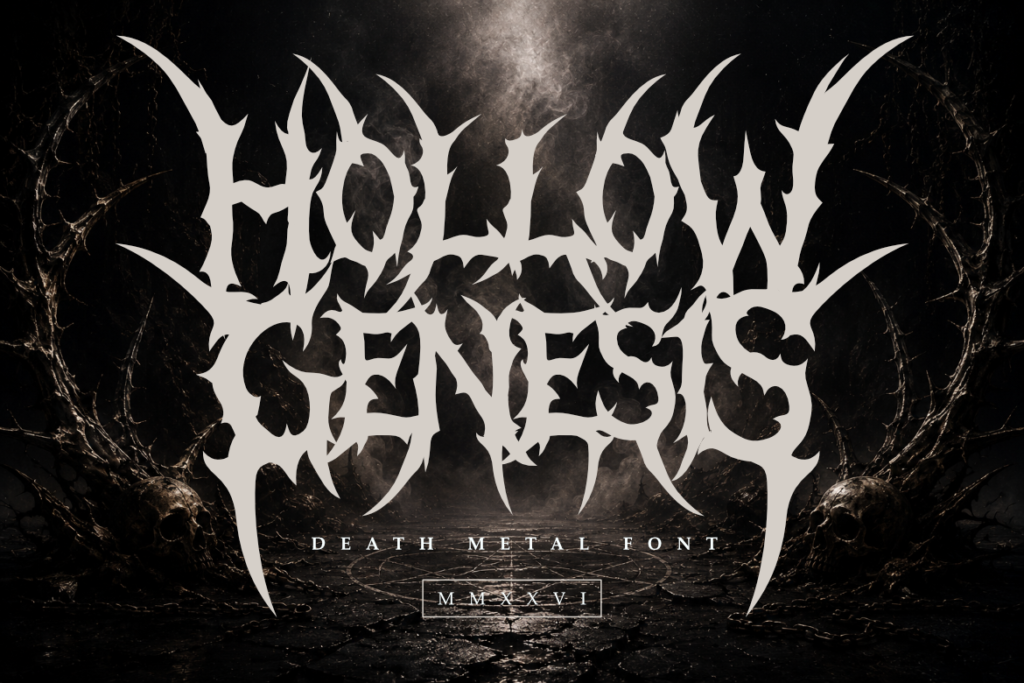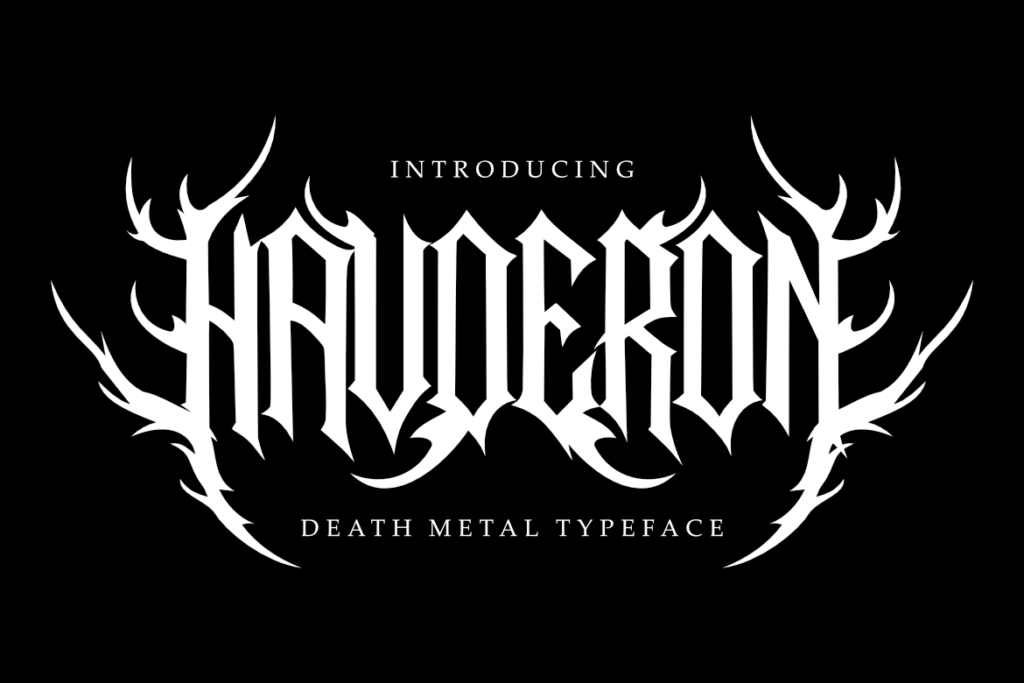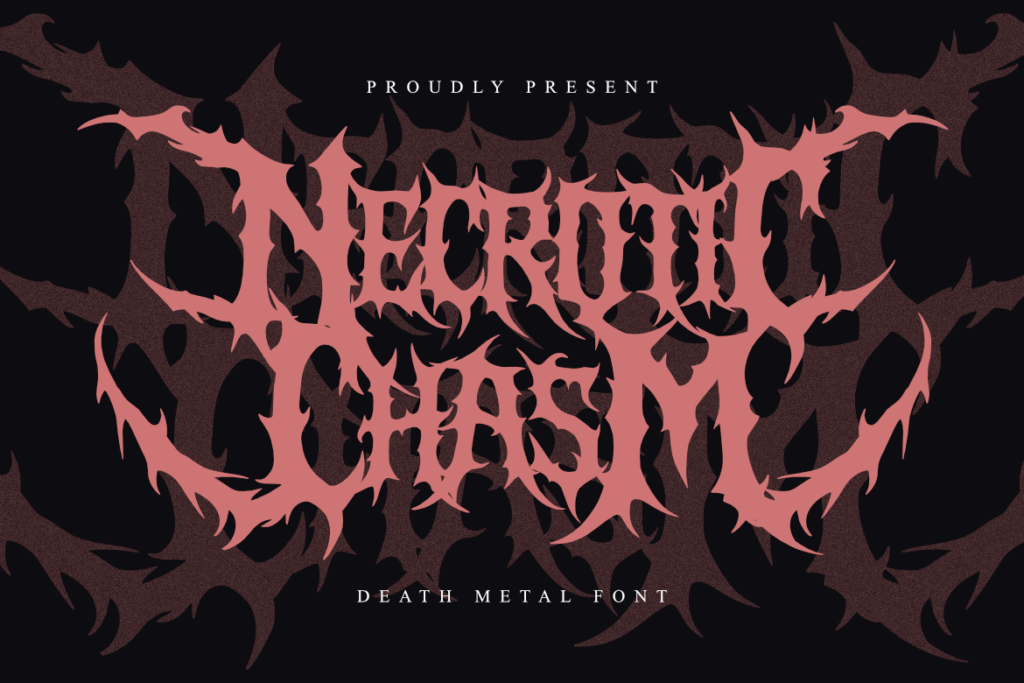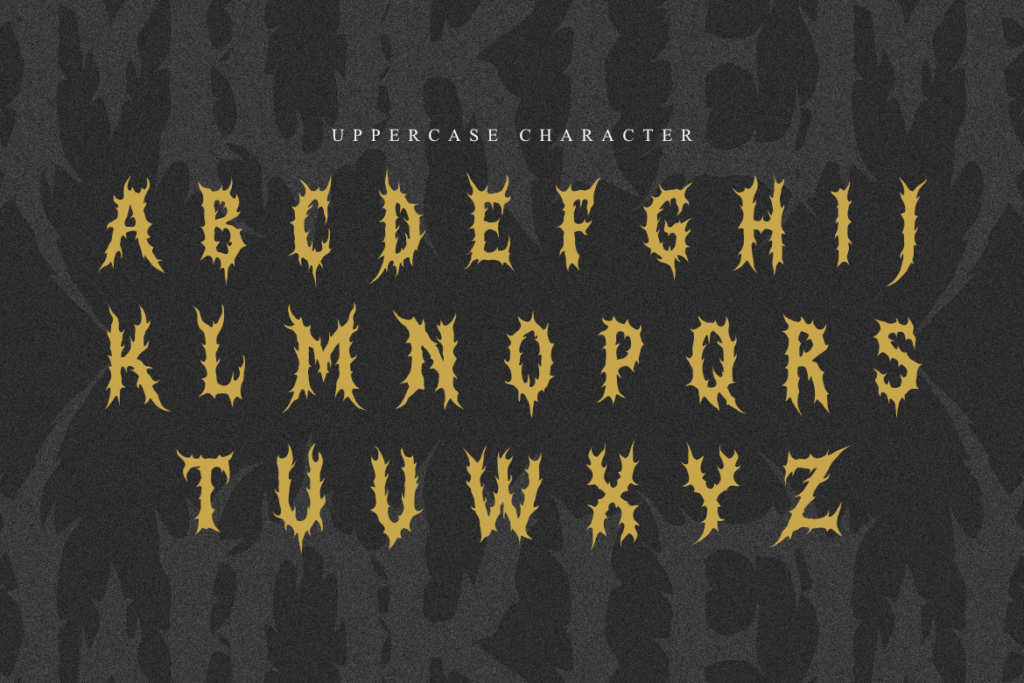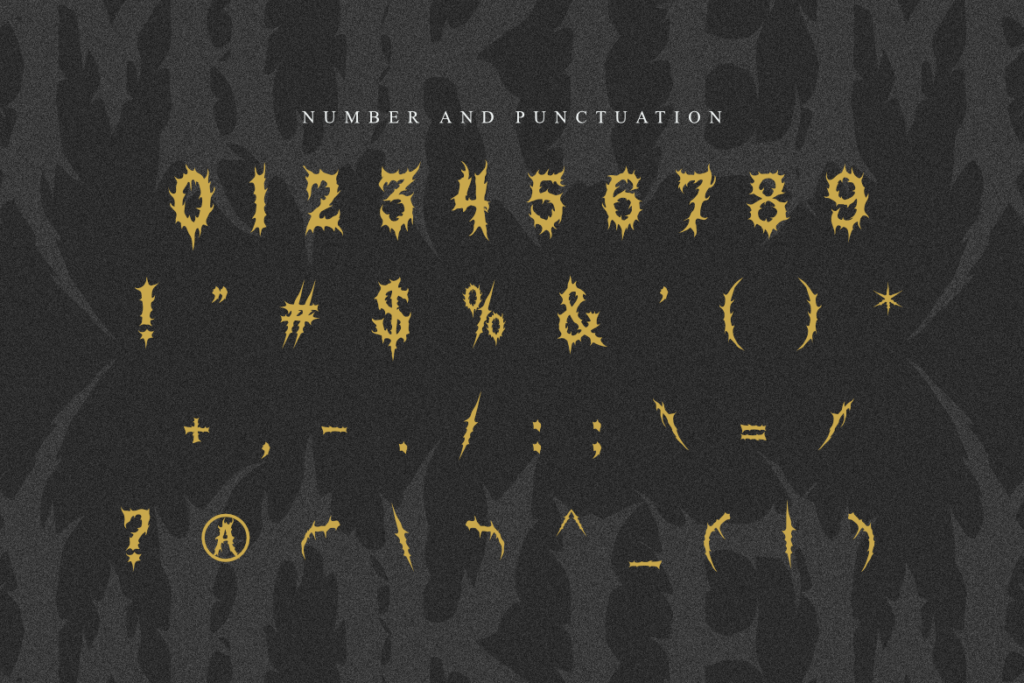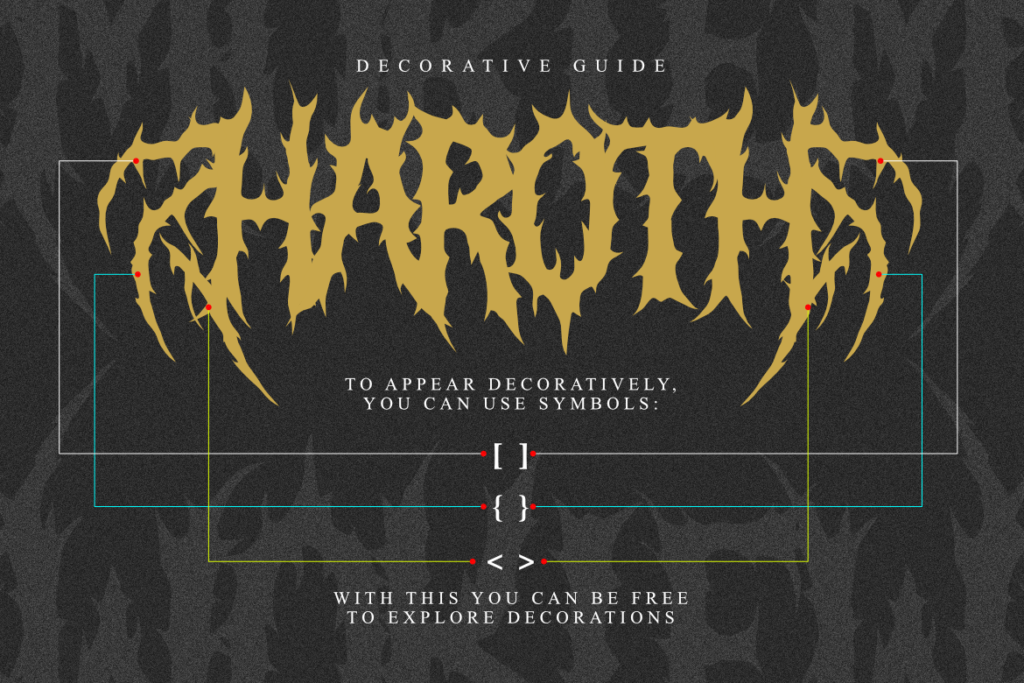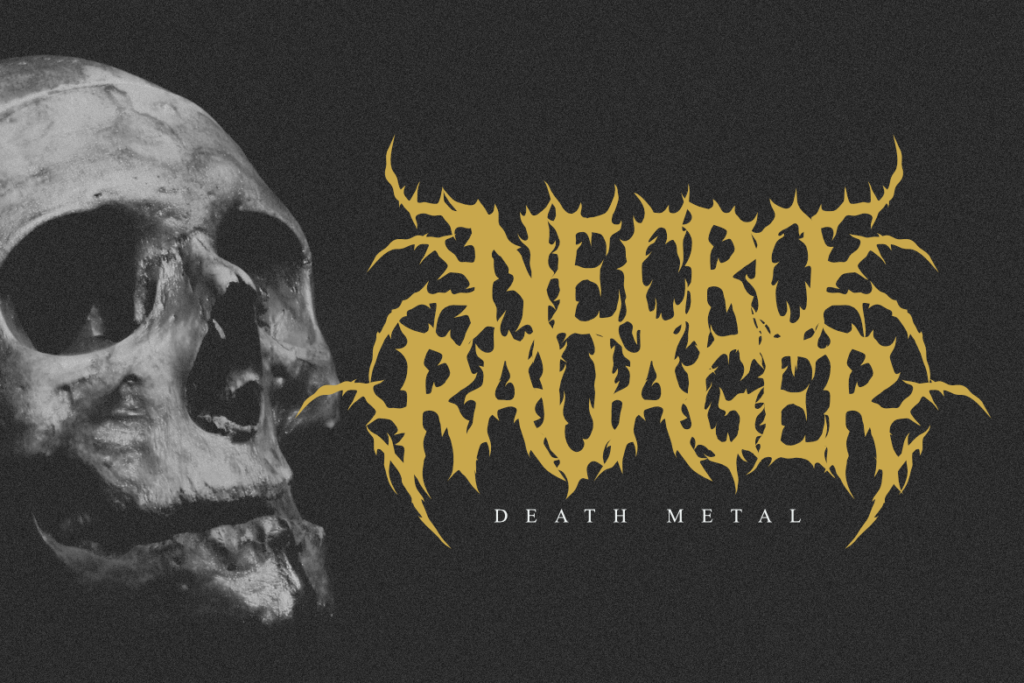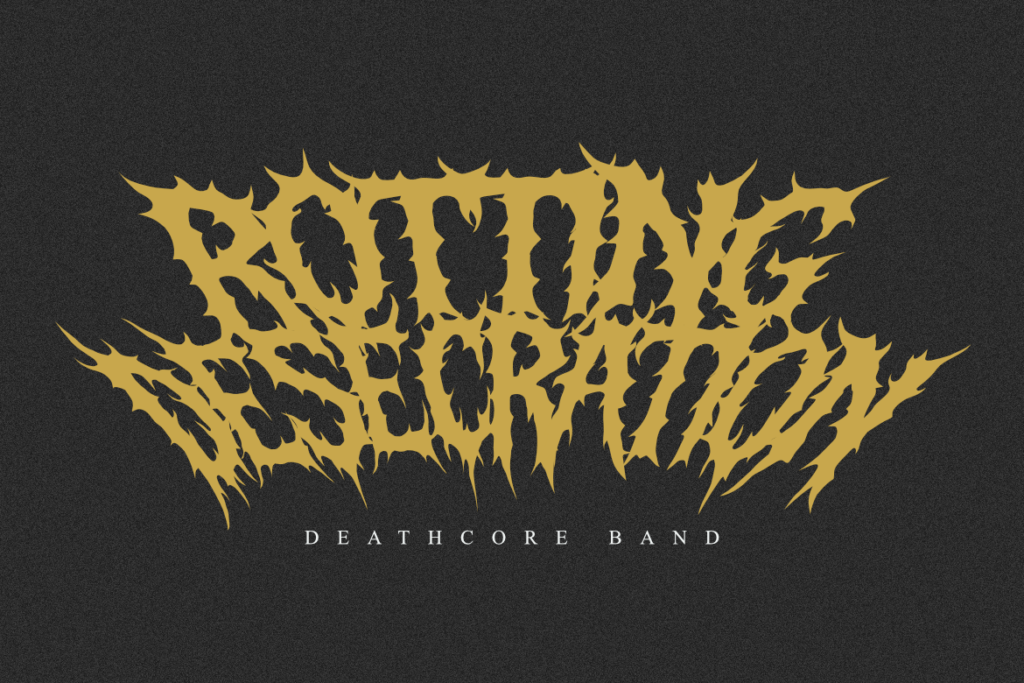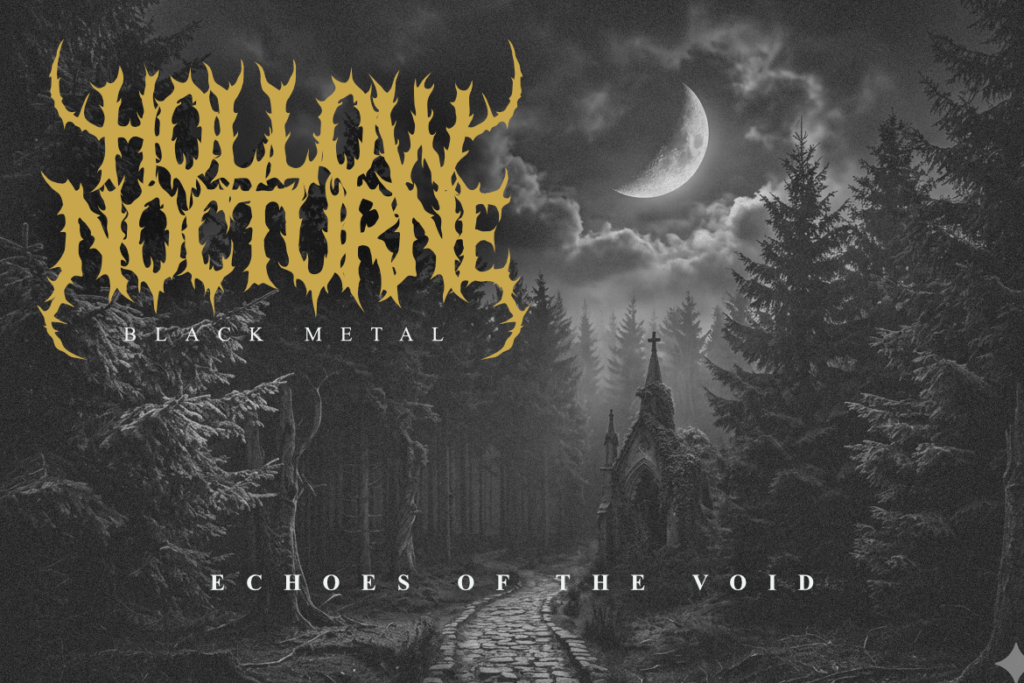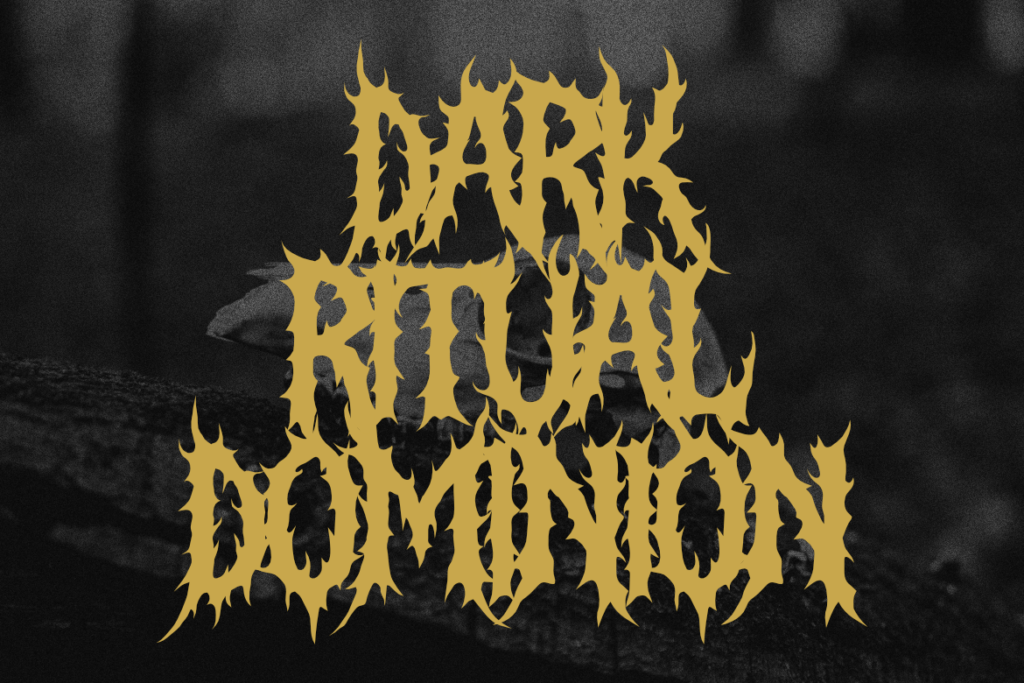
Display typeface · Latin
Mortem
Brutal Death Metal Font for Band Logos, Album Covers & Extreme Branding Mortem is a bold death metal font built for dark, aggressive, and powerful branding. Inspired by ancient Latin and brutal metal aesthetics, every letterform is crafted with sharp spikes, rough textures, and strong visual weight that commands attention. Perfect for band logos, album covers, concert posters, gaming visuals, and any dark creative project that demands an intense typographic presence. Mortem is an all-caps typeface with decorative symbols — use < > [ ] { } to add ornamental details and enhance your layouts with extra visual character. What’s included: All Caps Uppercase Numerals & Punctuation Decorative Symbols < > [ ] { } Mortem.otf Mortem.ttf